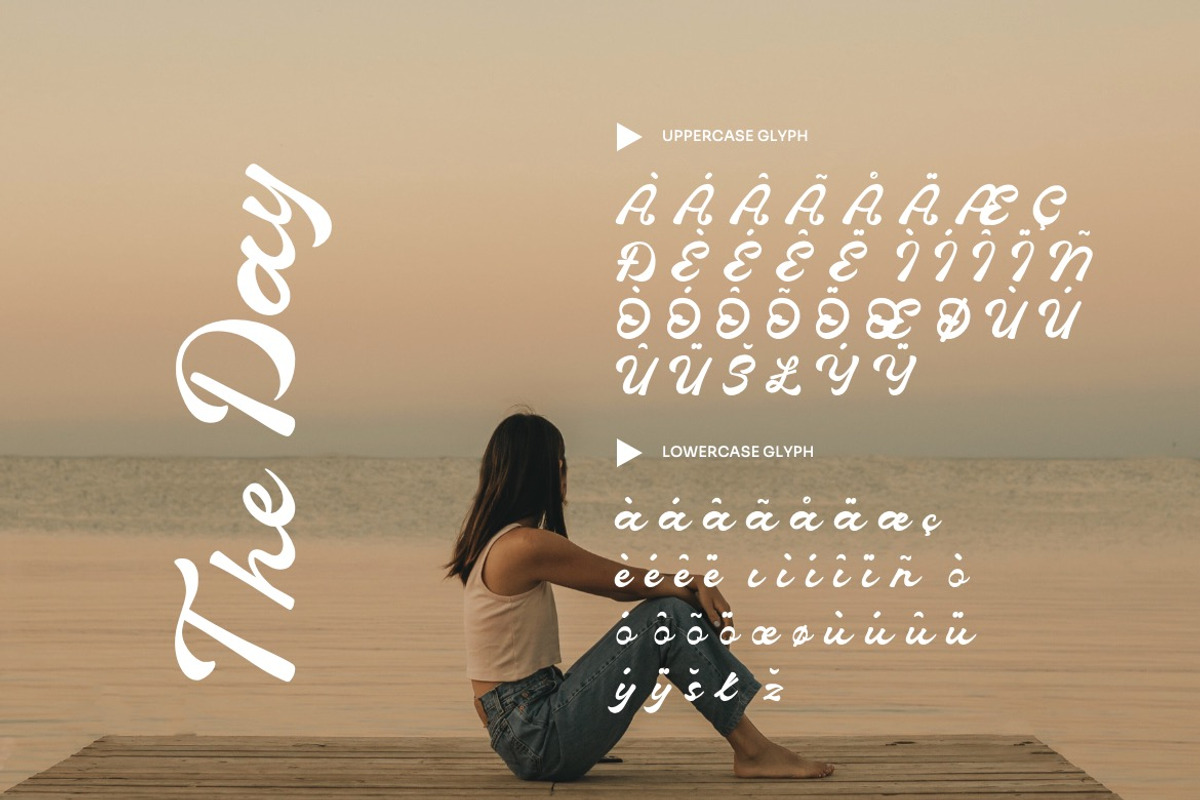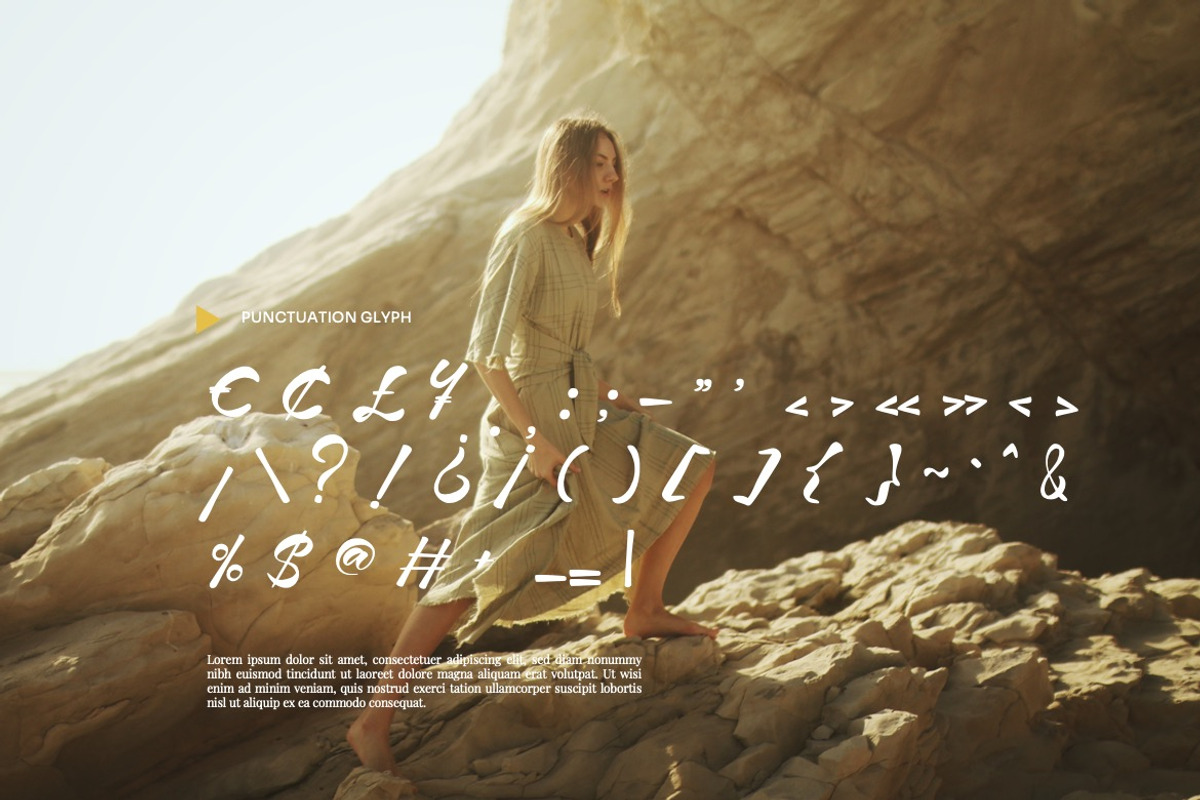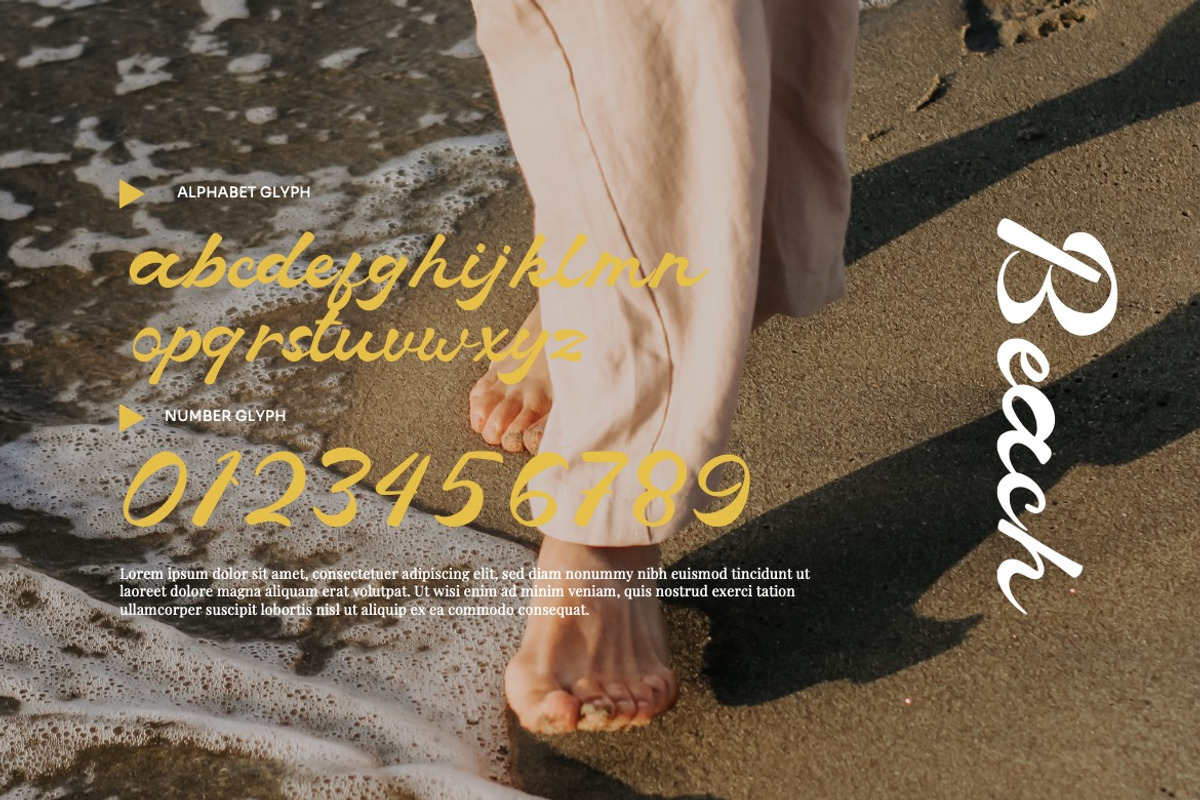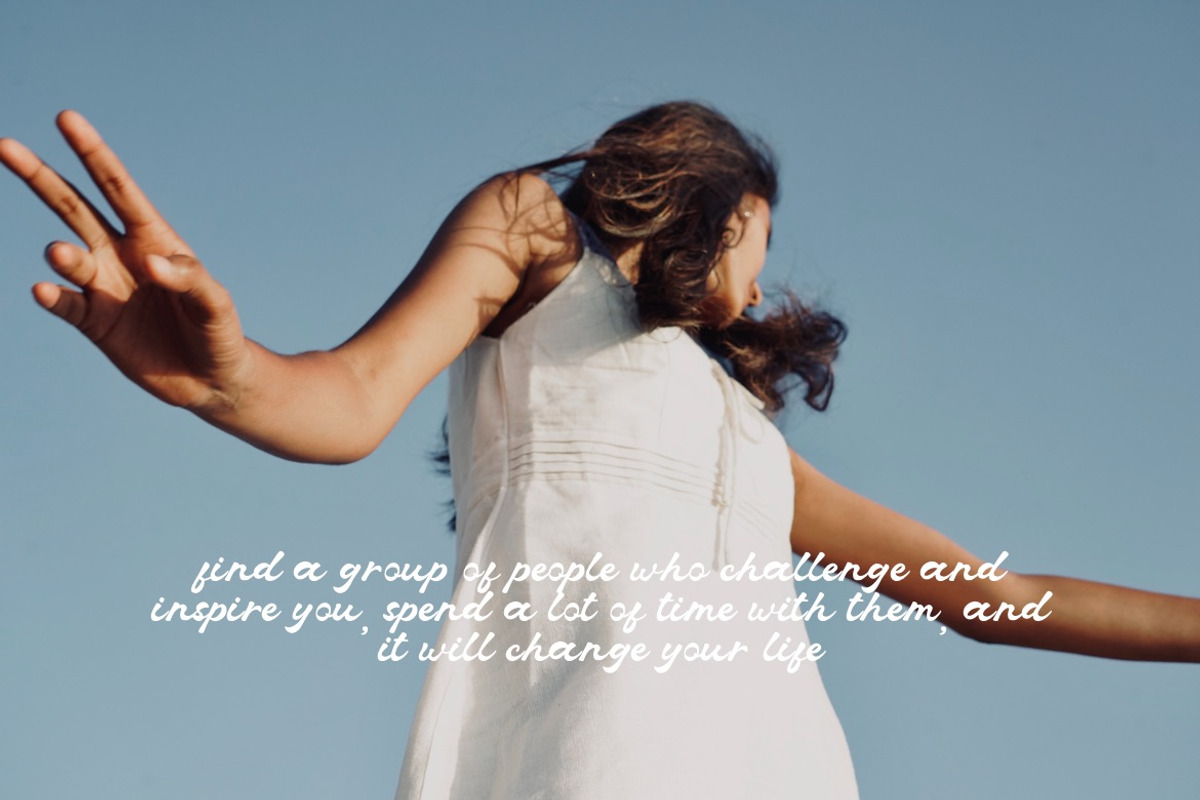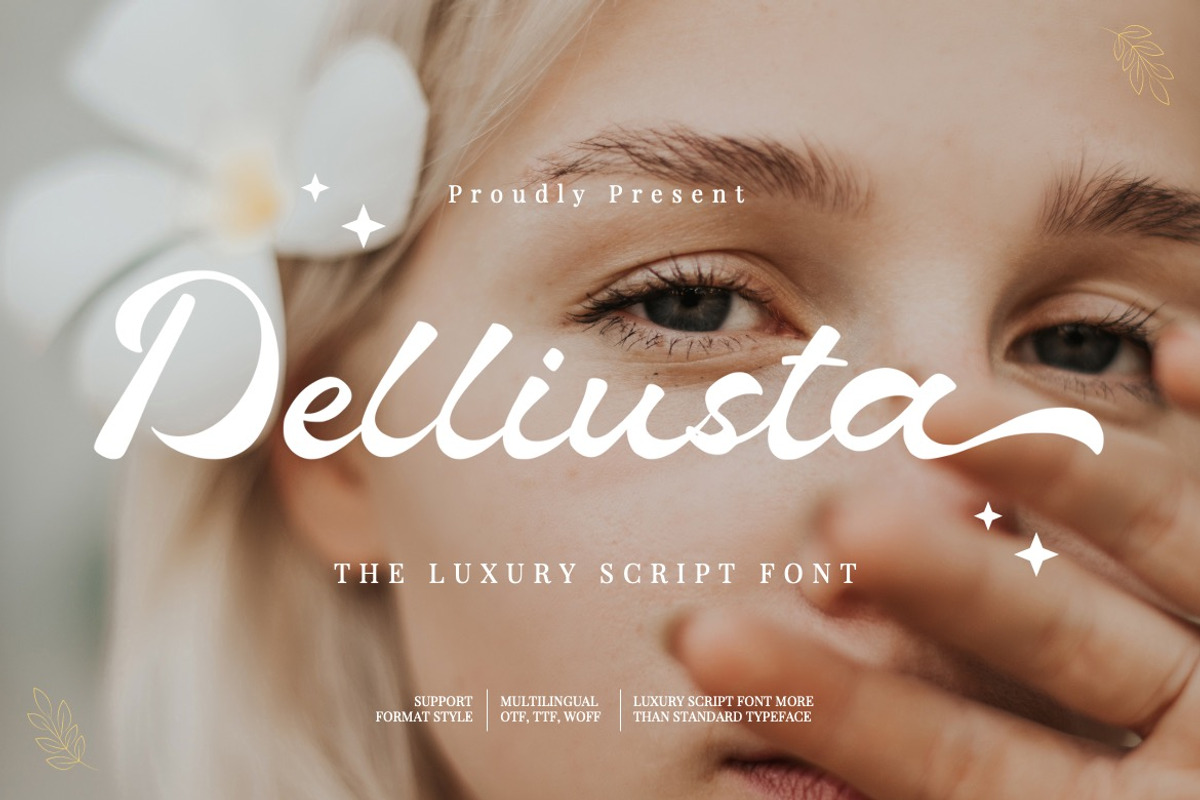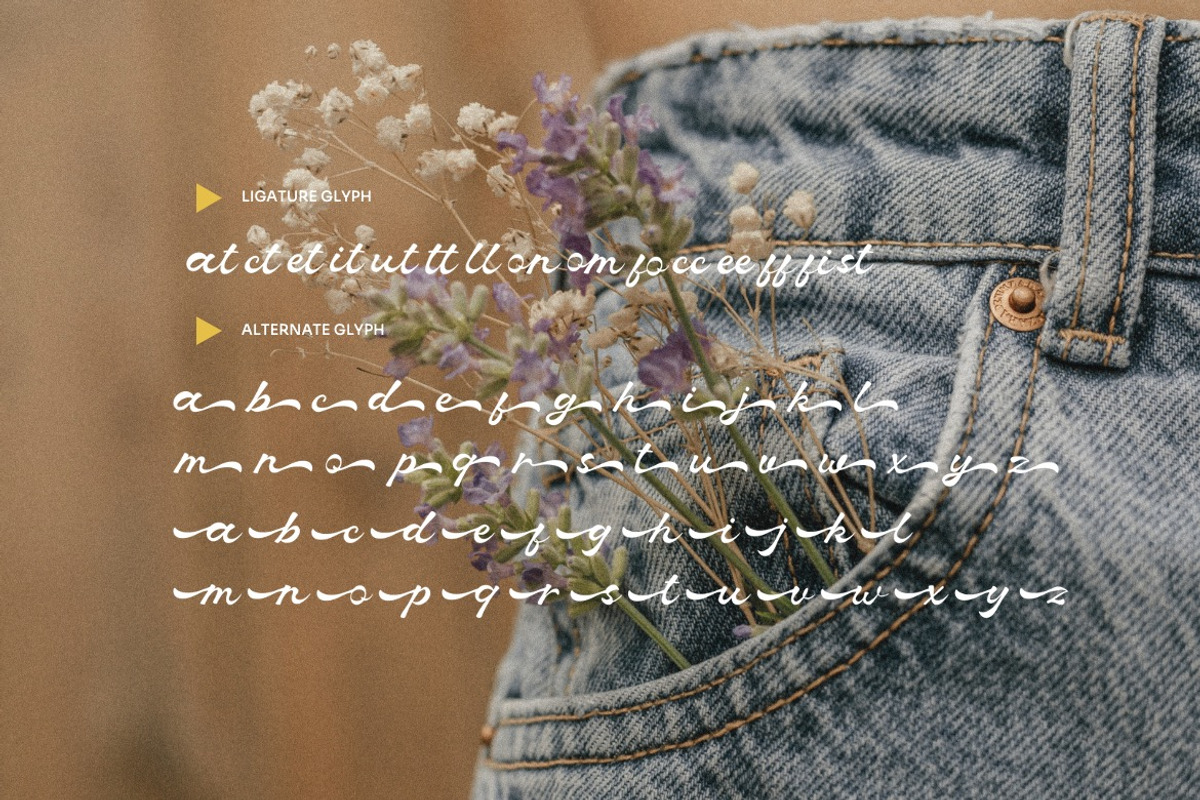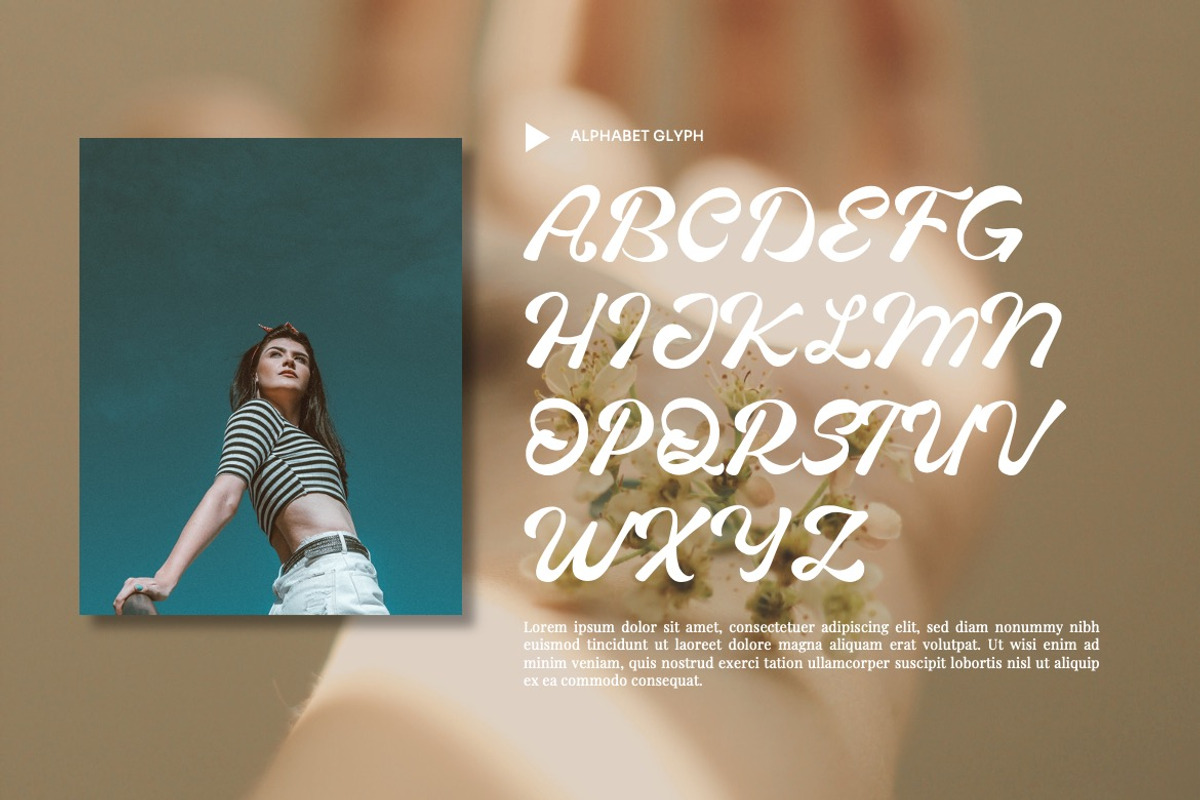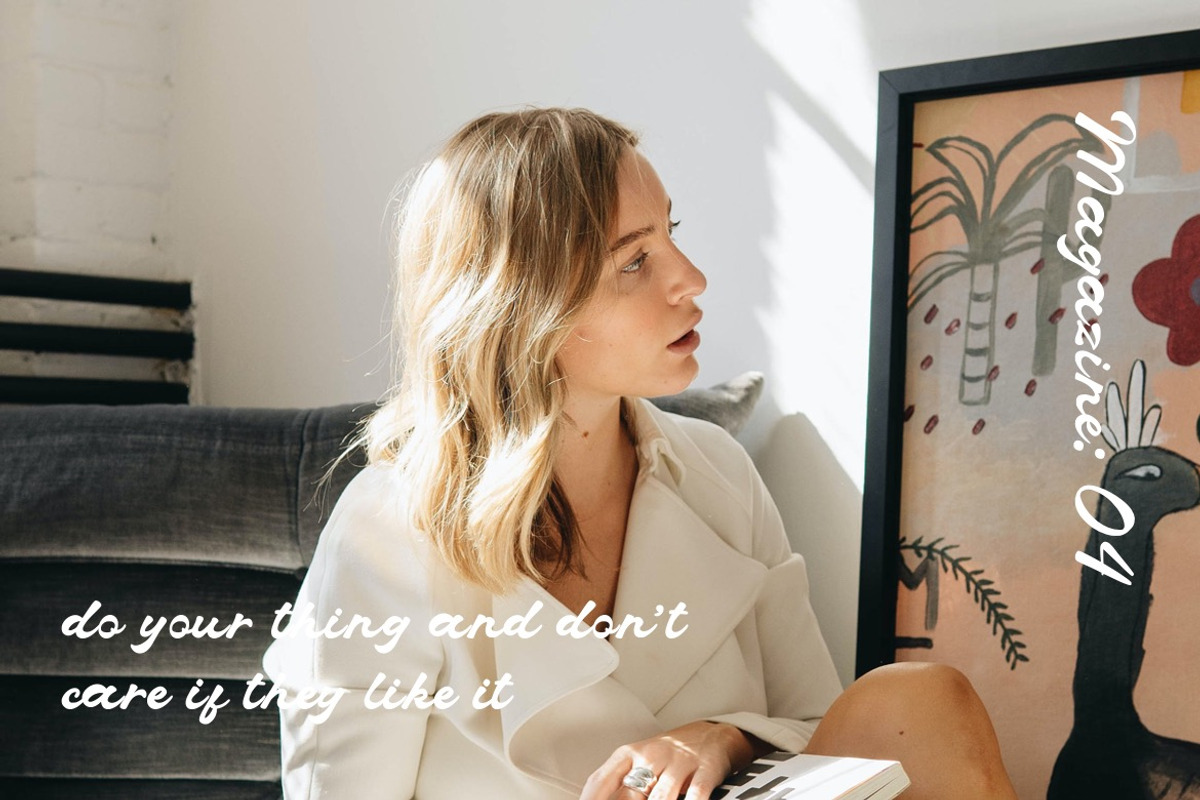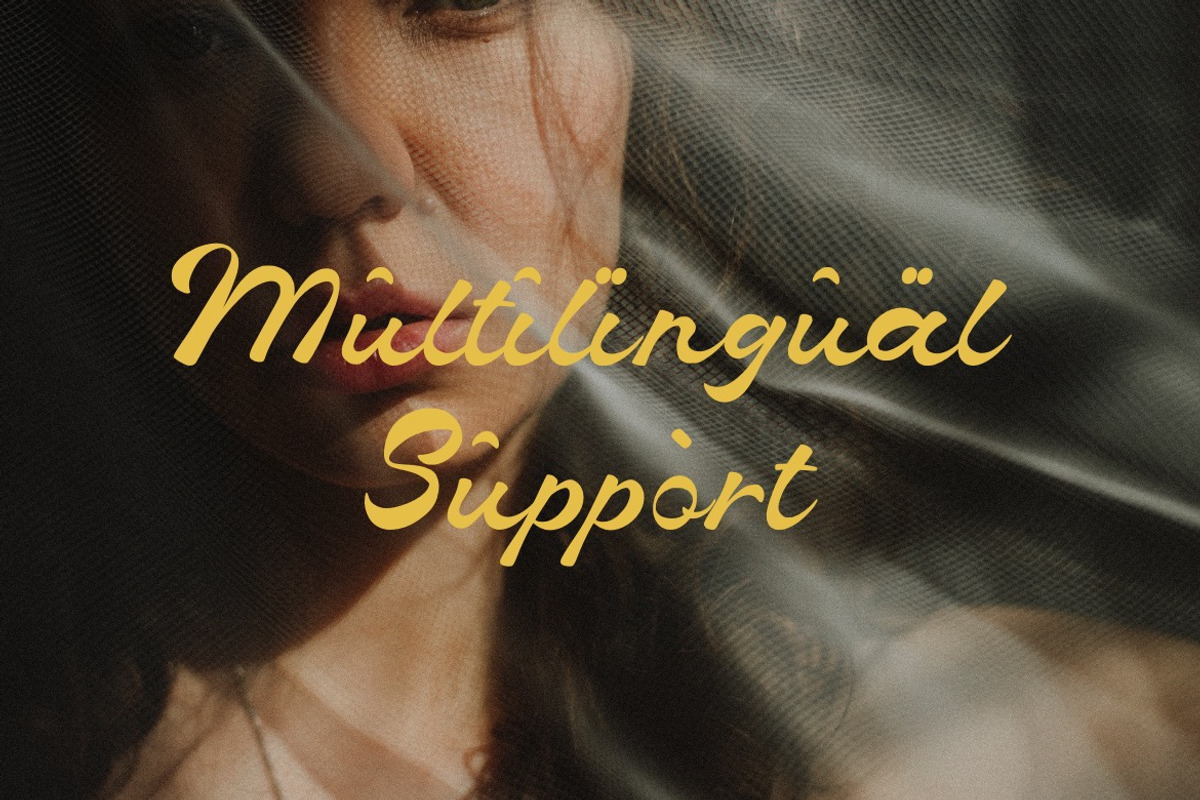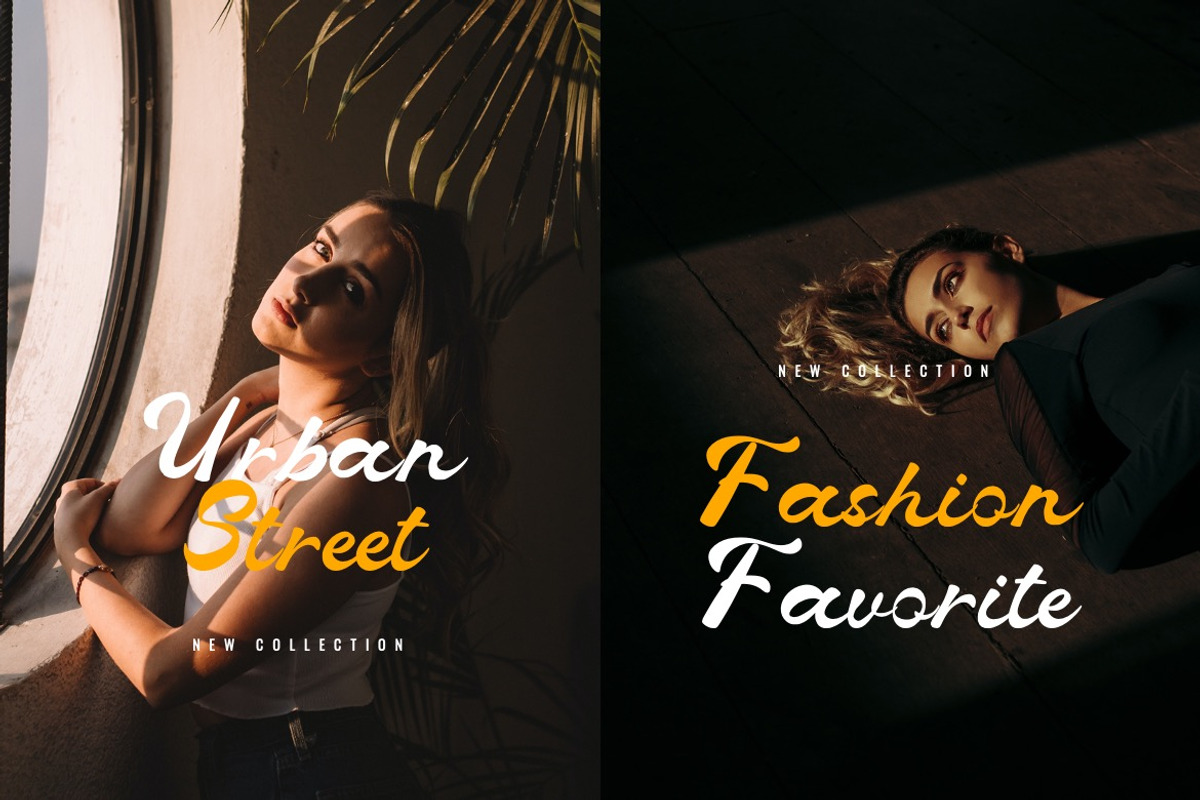
Delliusta - Luxury Script Font
Introducing Delliusta - Luxury Script Font
This Font is a delicate, elegant and flowing handwritten font. It has beautiful and well as a unique blend of ligatures a letter, so that the authors compose it with a and little swirly embedding, so that a modern font is formed and ready to make a statement by adding elegant and unique flair to your next design project. Add it to your most creative ideas and notice how it makes them come alive!
• Alternate & Ligature